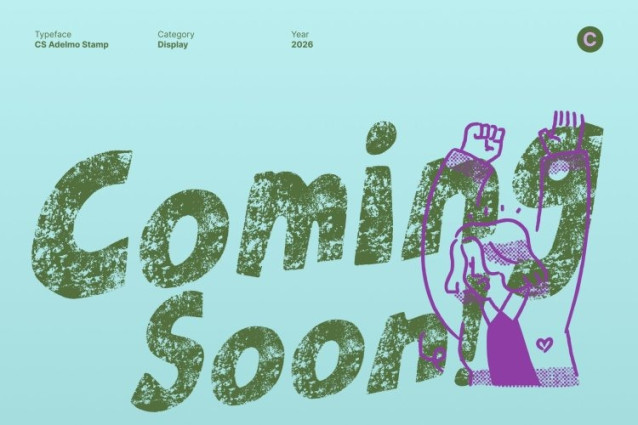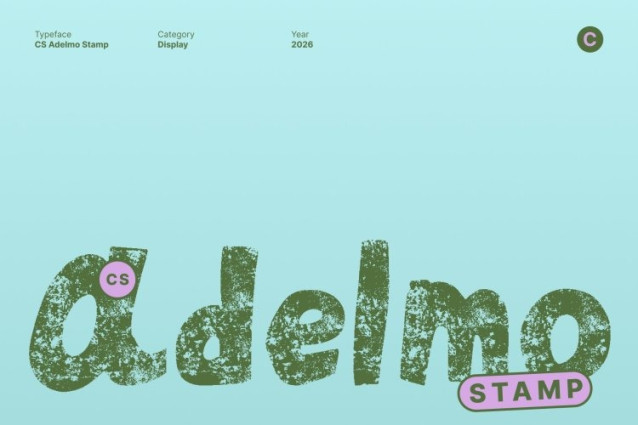
CS Adelmo Stamp Font This is a modern handwritten display font that blends lively, expressive strokes with a confident contemporary structure. Its naturally drawn letterforms create a friendly rhythm that feels spontaneous and full of joy. Enhanced with a stamp effect, the font gains a textured, slightly vintage character that adds visual depth and charm.
Authentic Strokes with Artistic Stamp Detail
Each letter reflects the organic flow of real handwriting, celebrating deliberate imperfections and creative movement. The stamped texture introduces artistic irregularities inspired by traditional print techniques, giving the font a warm, handcrafted feel that feels personal, expressive, and visually engaging.
Cheerful Energy with Expressive Personality
This font radiates playful energy through its rounded shapes and dynamic forms. The combination of cheerful handwriting and textured detail brings positivity and vibrancy to every composition, making designs feel lively, creative, and approachable.
Perfect for Bold and Creative Projects
Ideal for titles, posters, branding, packaging, event graphics, social media visuals, and artistic displays, this font delivers a bold typographic voice with joyful personality. Its modern handwritten style, vintage stamp texture, and expressive charm make it a perfect choice for creative projects that need warmth, character, and visual impact.